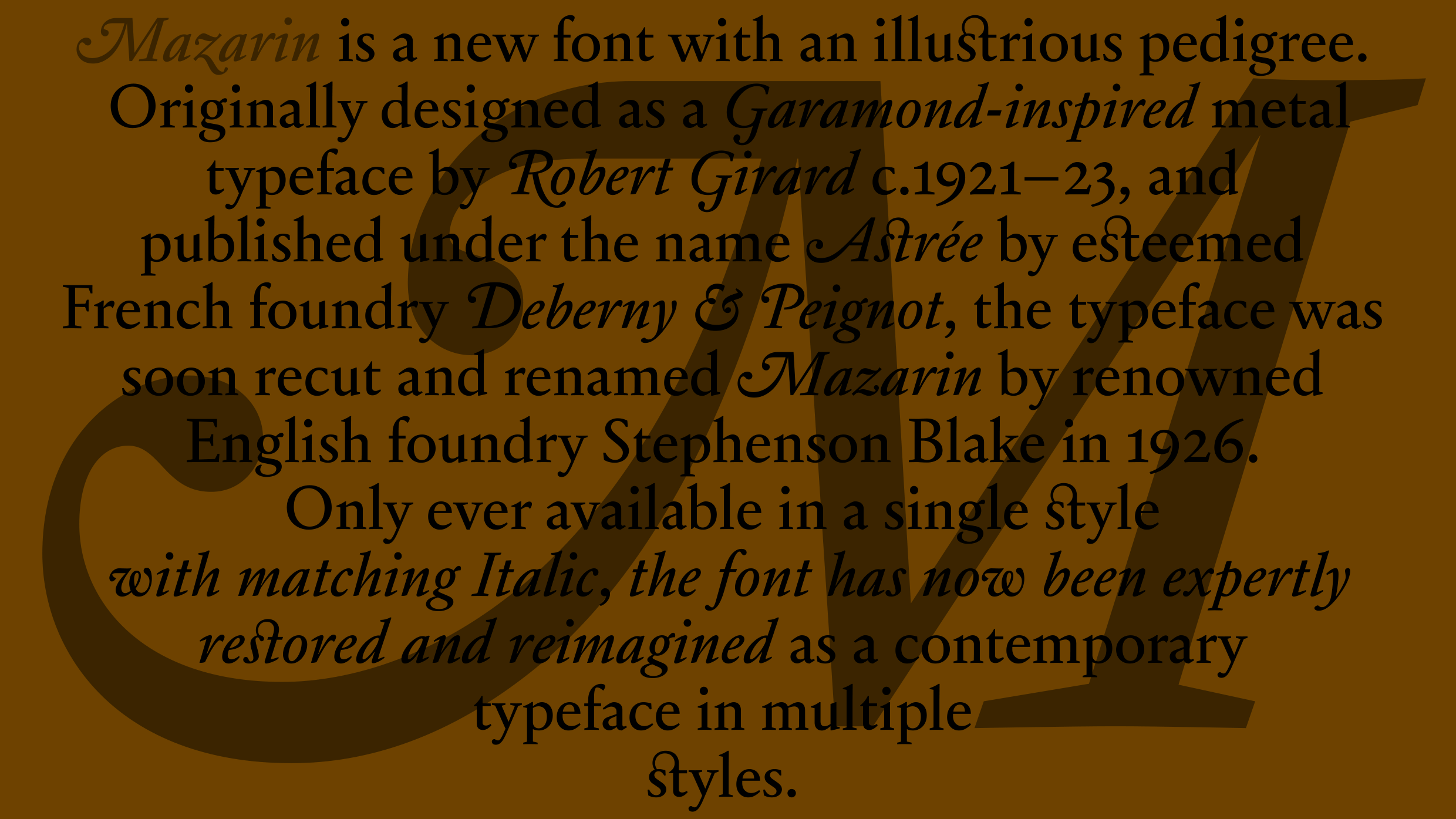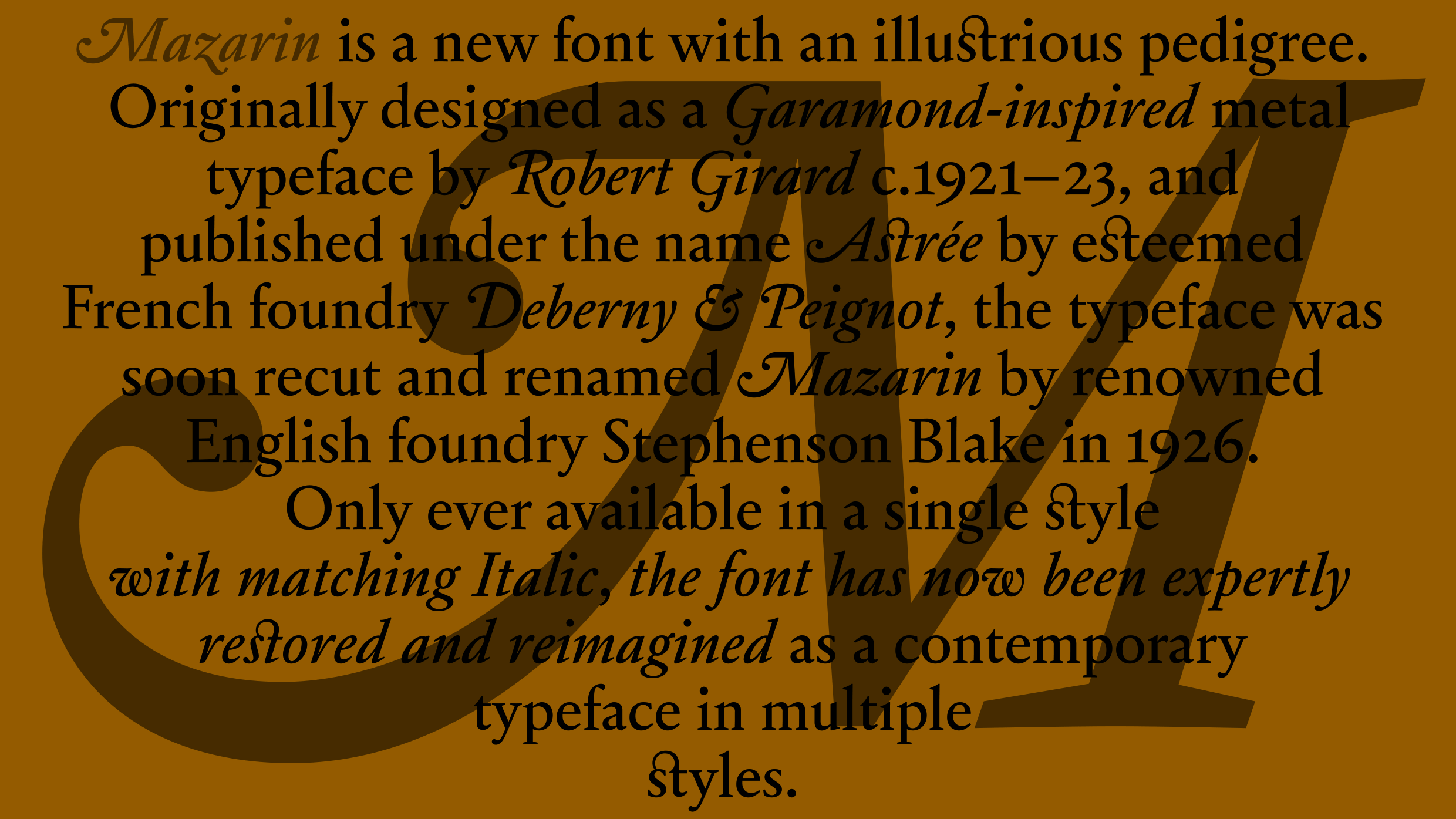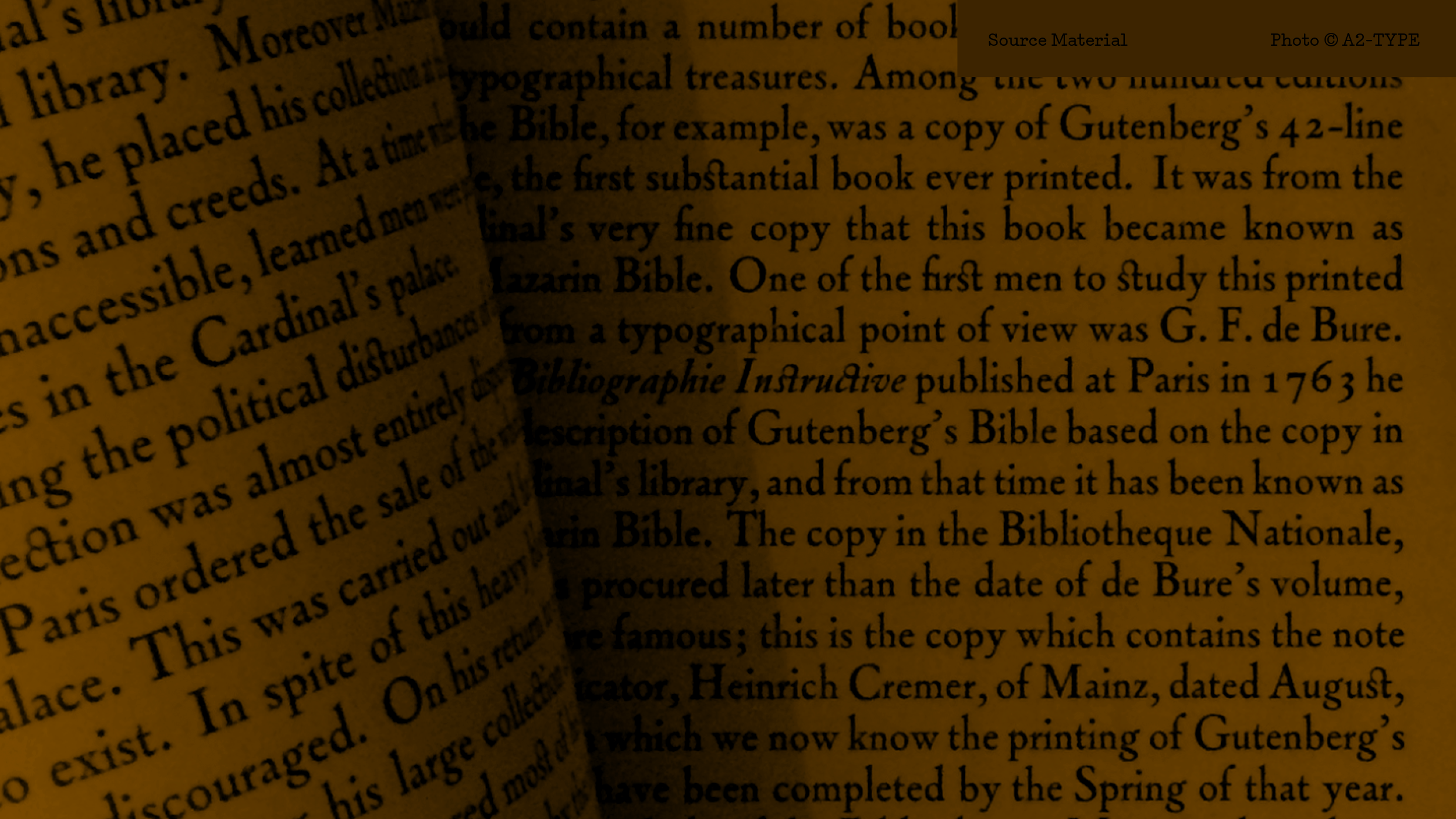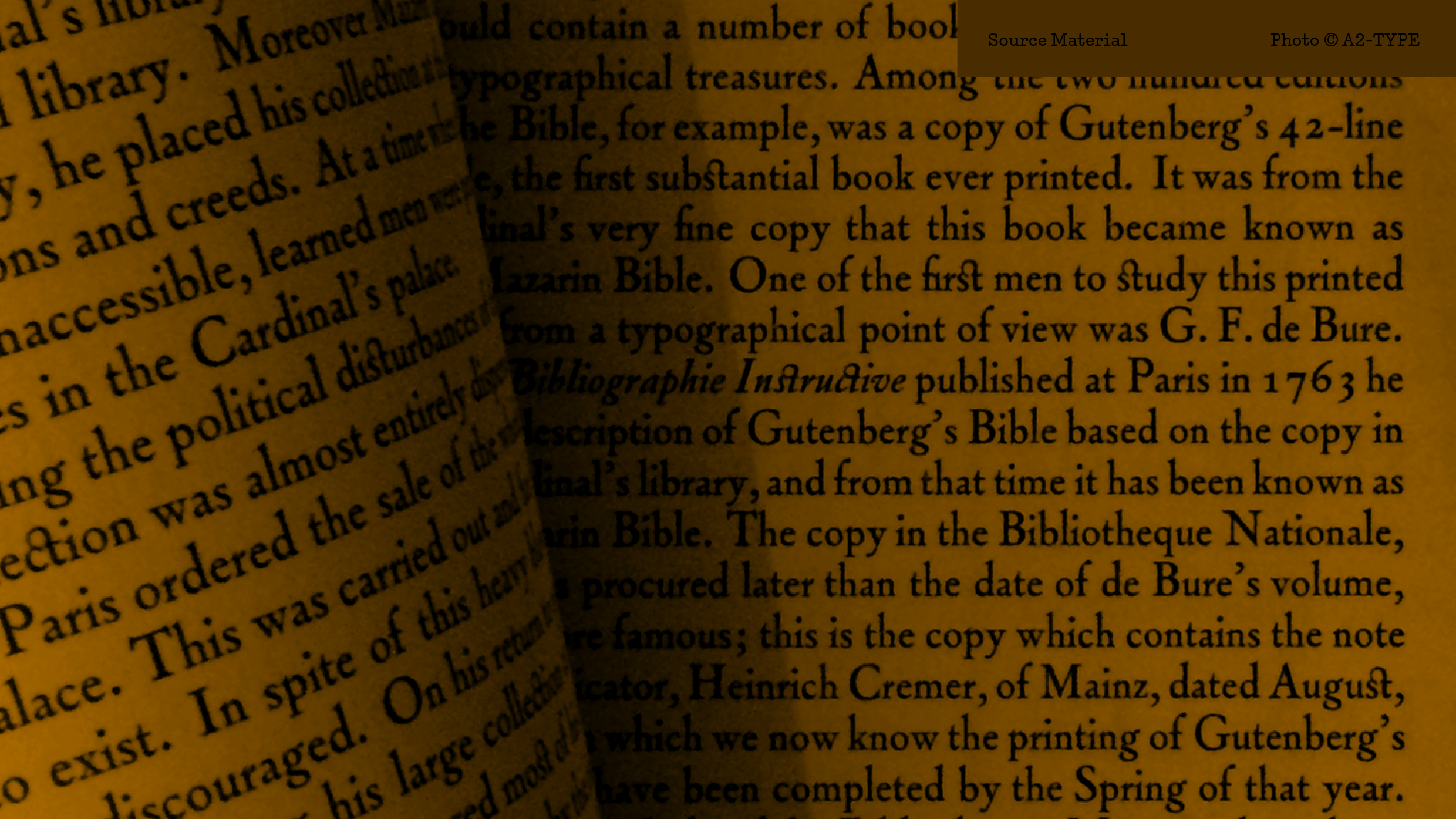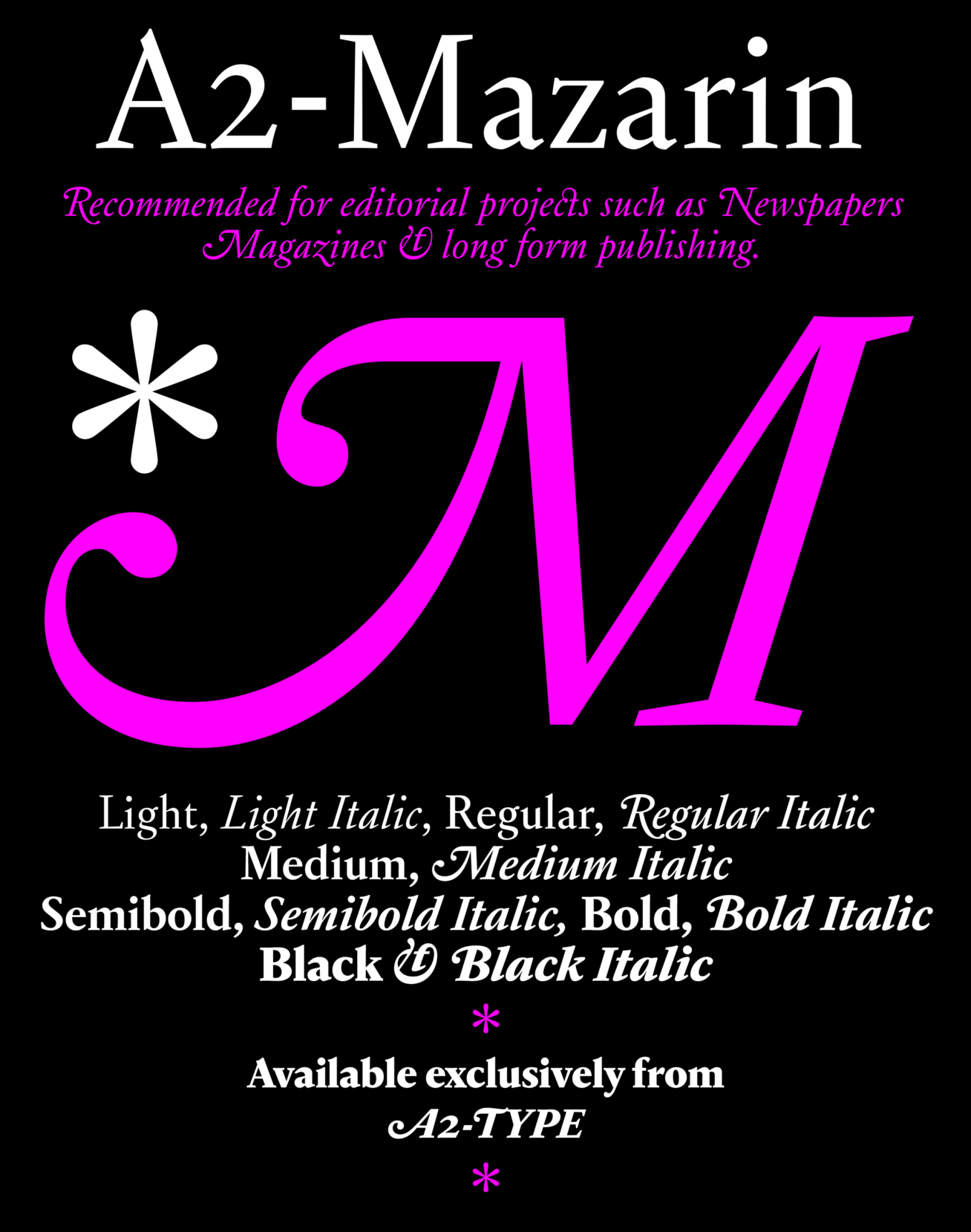
A2 Mazarin is a new font with an illustrious pedigree. Originally designed as a Garamond-inspired metal typeface by Robert Girard, c.1921–23, and published under the name Astrée by esteemed French foundry Deberny & Peignot, the typeface was soon recut and renamed Mazarin by renowned English foundry Stephenson Blake in 1926. Only ever available in a single style with matching Italic, the font has now been expertly restored and reimagined as a contemporary typeface in multiple styles. To read more about Mazarin, check out Paul Shaw’s superbly researched essay here.
| Font name: | A2 Mazarin |
| Font category: | Serif/Slab |
| Styles: | Light Light Italic Regular Italic Medium Medium Italic SemiBold Italic Bold Bold Italic ExtraBold Italic Black Black Italic |
| Script: | Latin |
| Designer: | Henrik Kubel |